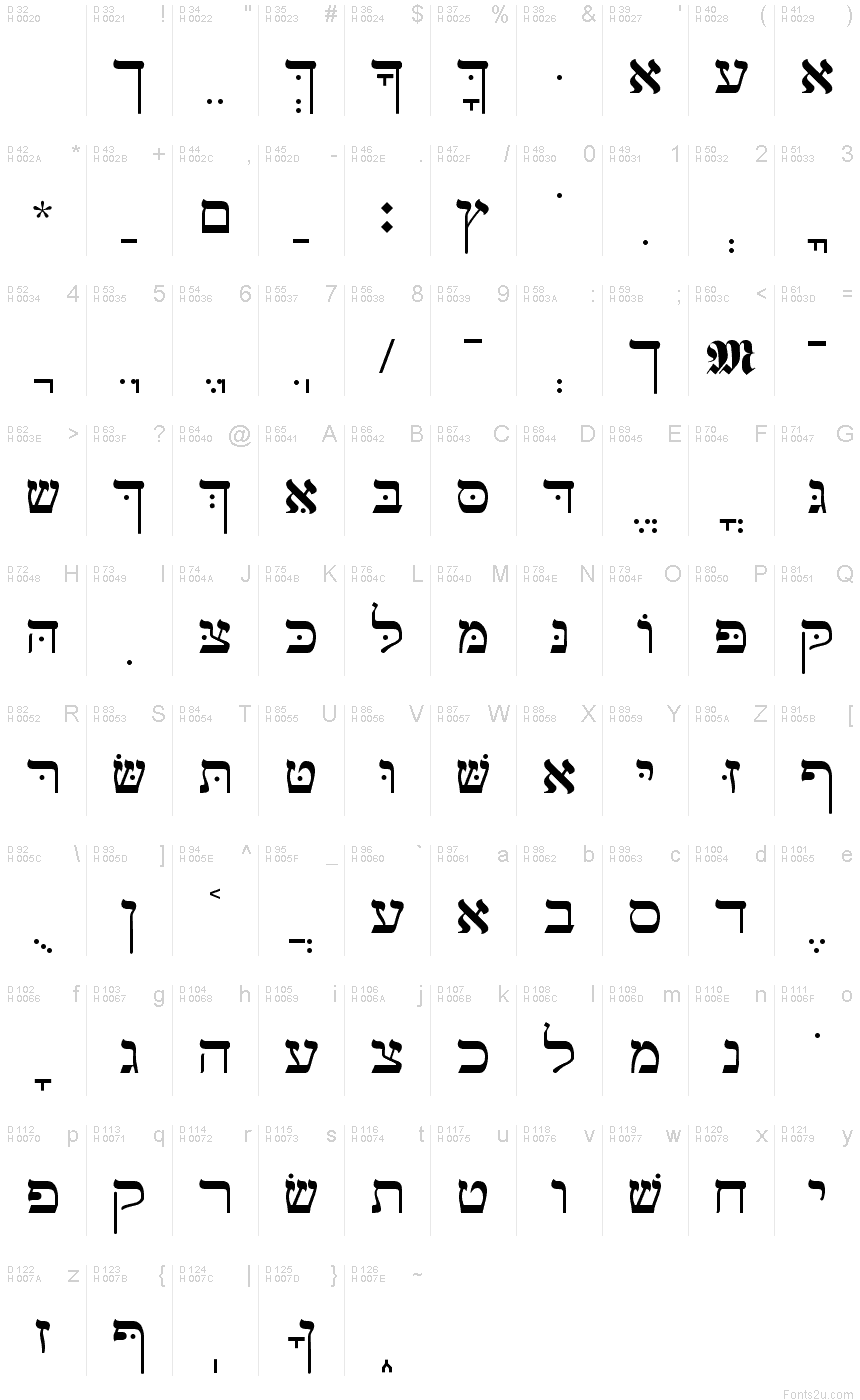
A handwriting (script) font based on the flowing handwriting of gili levin. We'll show you all the fonts that are available for each character. Categories, popular, designers, optional web font download and links to similar fonts.
Gveret Levin Alef Alef Alef.
Hebrew tattoo font generator choose tattoo font afaratibn blady kanisah samaritan fonts like hebrew can come in many different “weights ”, which stands for the strength and thickness of the font itself. Type a for א and type j for ע; However, israelis and hebrew speakers will primarily use cursive script for handwriting.
A hebrew script font is based on the light, graceful handwriting of the designer dana nof. These take the form of points and small lines. Search from a wide range of typography fonts
Hebrew Is Written Using The Hebrew Script.
The hebrew language has both a print and a cursive script just like we do in english. If you just want to create text graphics and logos online using script fonts, you can check out our text generator below. Click to see all the free fonts that are available for hebrew.